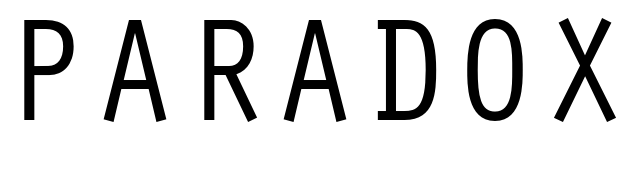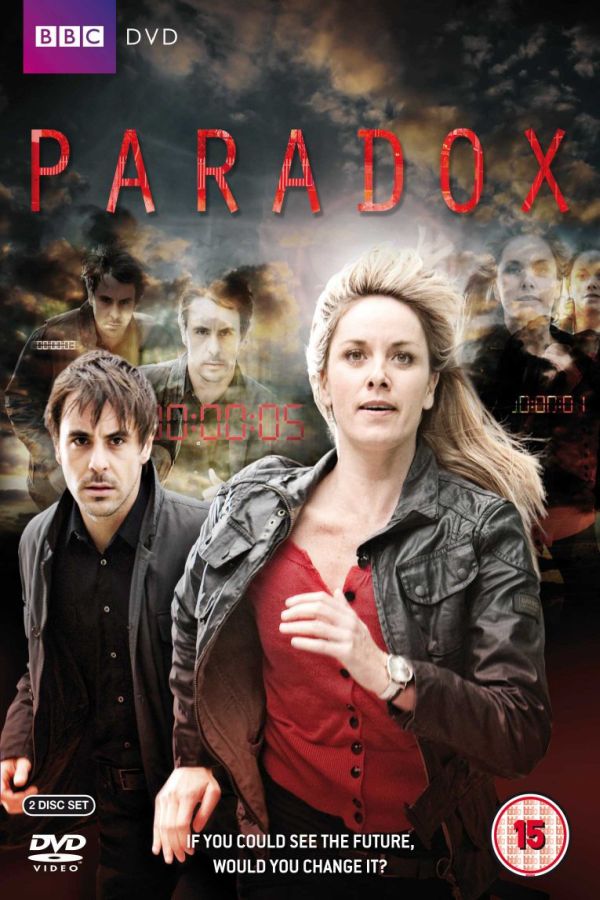
Paradox Font
DramaParadox s a science-fiction drama movie released in 2018. It follows a group of astronauts who travel through a wormhole in search of a new habitable planet, but end up in a mysterious alternate dimension where time behaves in unexpected ways.
The title font of the TV series is most likely Orator Medium, a monospaced typeface composed of capital and small capitals designed by John Scheppler. Further details about the font can be viewed here.